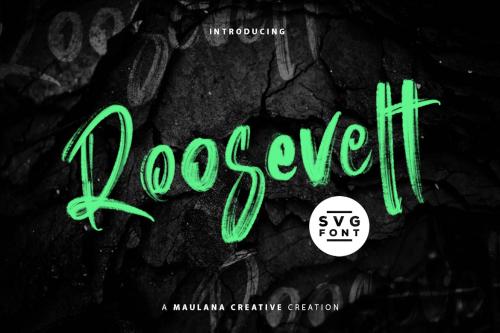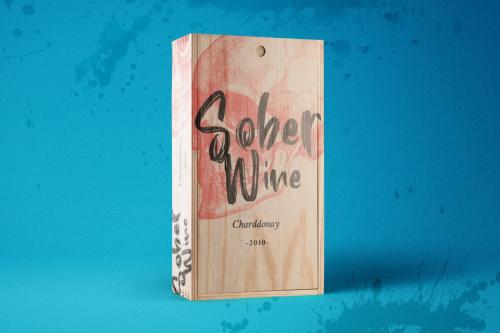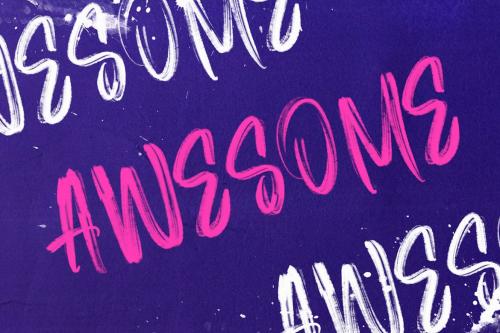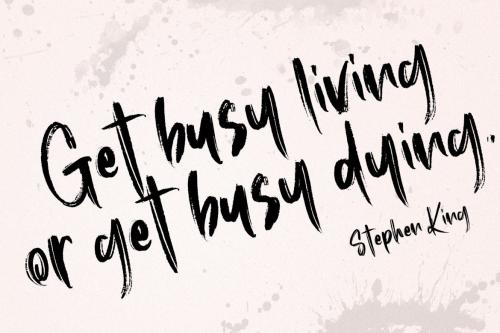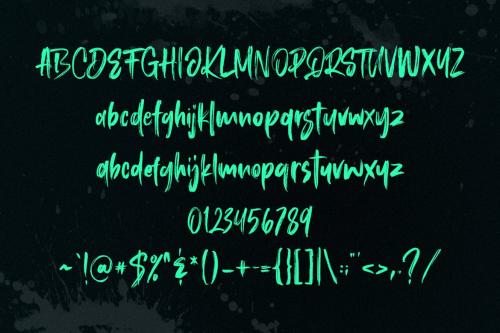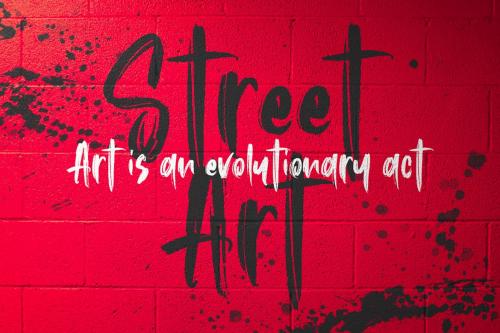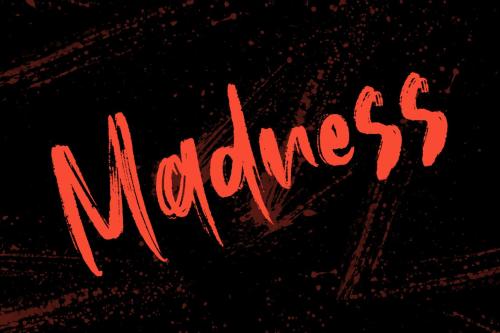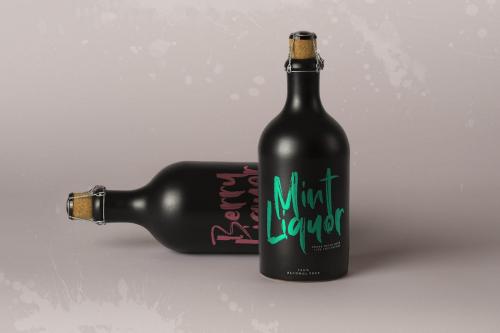
罗斯福SVG画笔字体
Roosevelt SVG Brush Font
Give your designs an authentic brush handcrafted feel. "Roosevelt" is perfectly suited to signature, stationery, logo, typography quotes, magazine or book cover, website header, flyer, clothing, branding, packaging design and more.